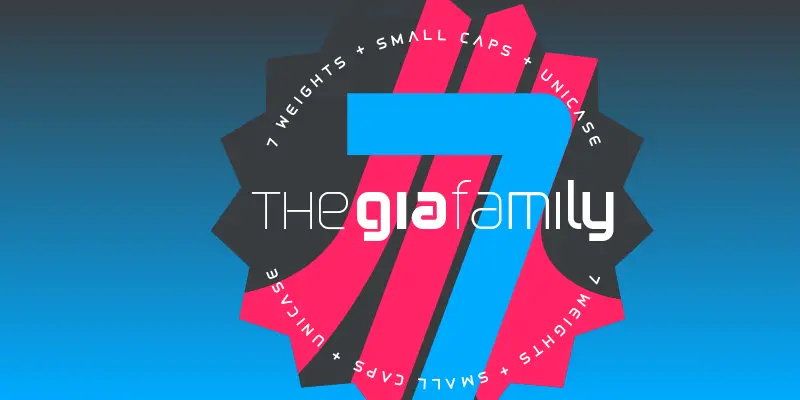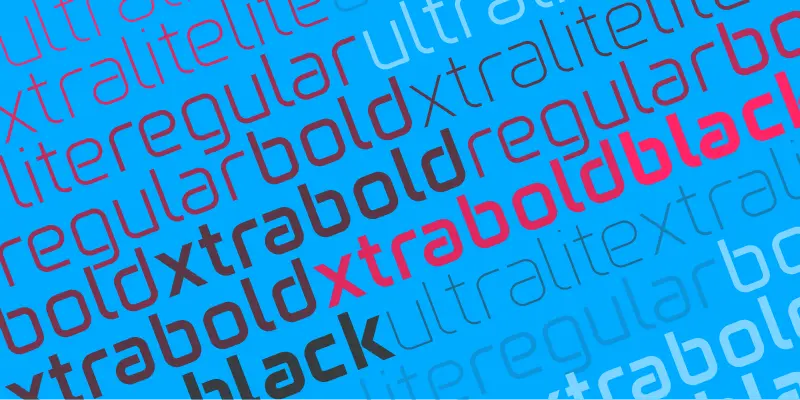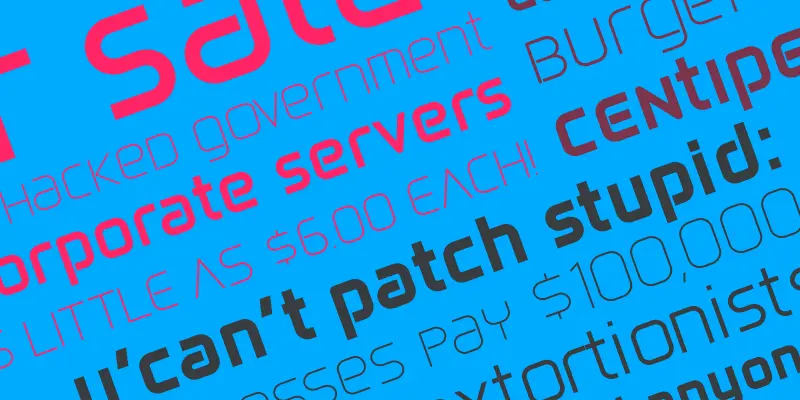
Gia
From XO Type Co
Gia is a family in seven weights with unicase options and true small caps, designed after the iconic letterforms of the first digital tech revolution of the 1960’s to 1980’s. These sinewy, curved letterforms popped up in logotypes and music videos and upright video games of the era: NASA, The Buggles, Atari, Pong, Sega, Namco, Stern, Devo, Apple. Gia pays homage to that letterform, and is named after Gia Carangi, the iconic face of early 1980’s pop fashion.
Designed by Patric King